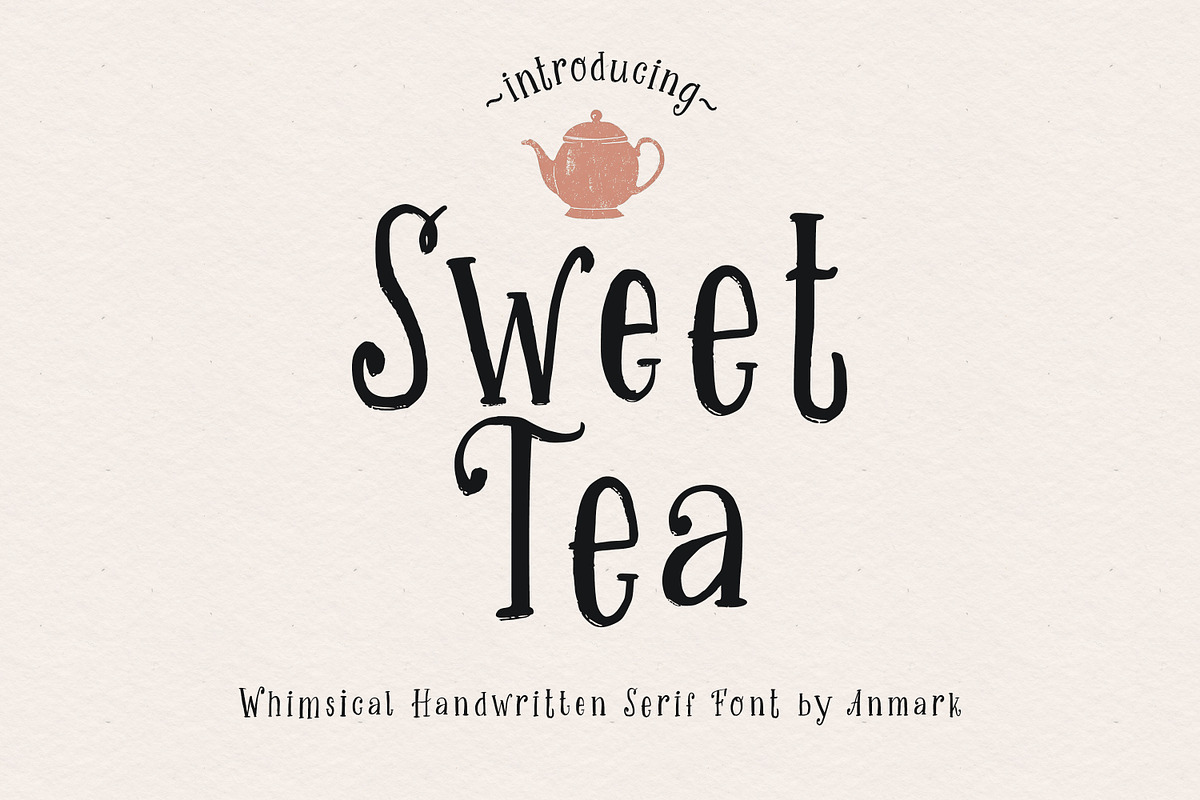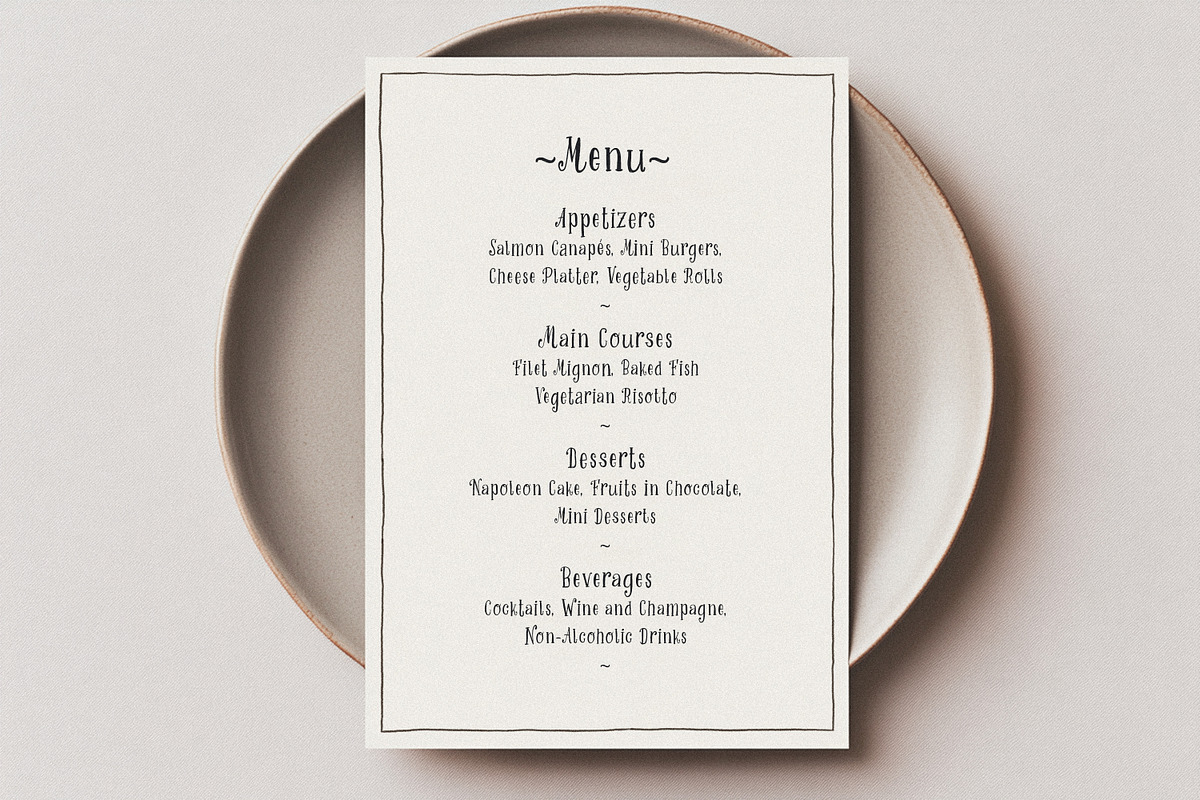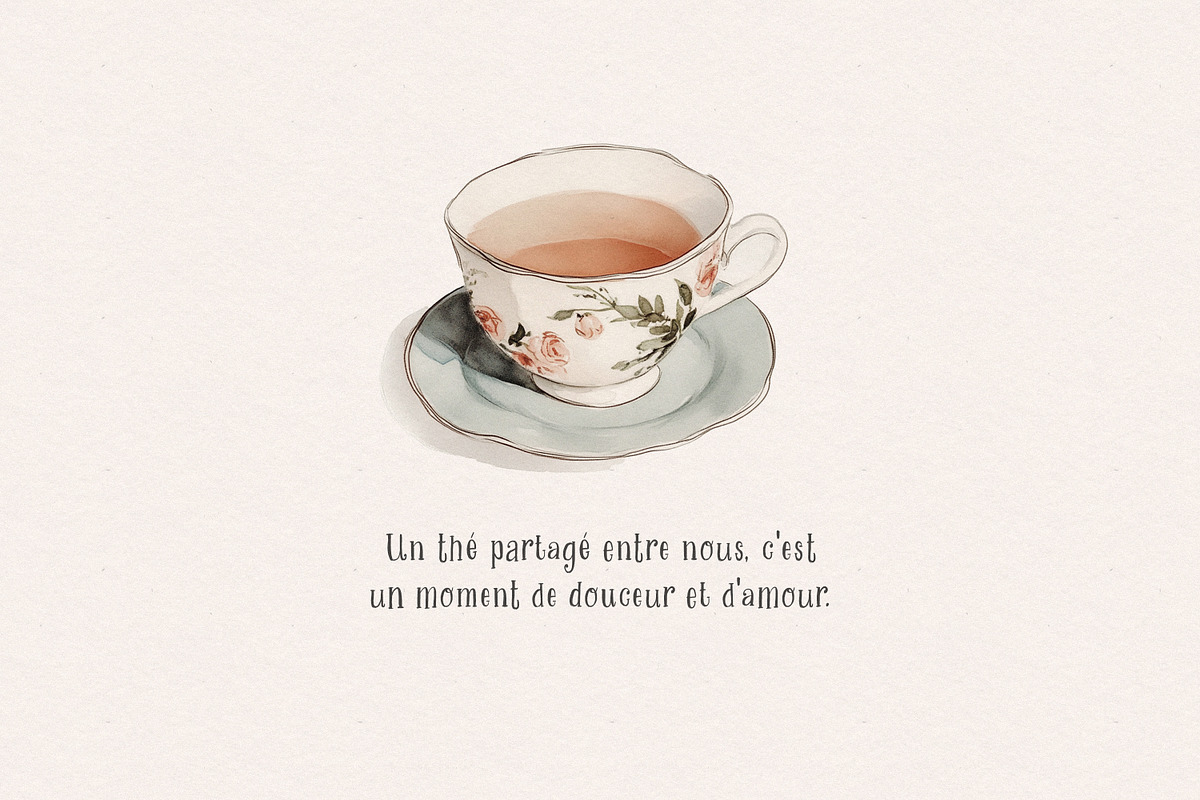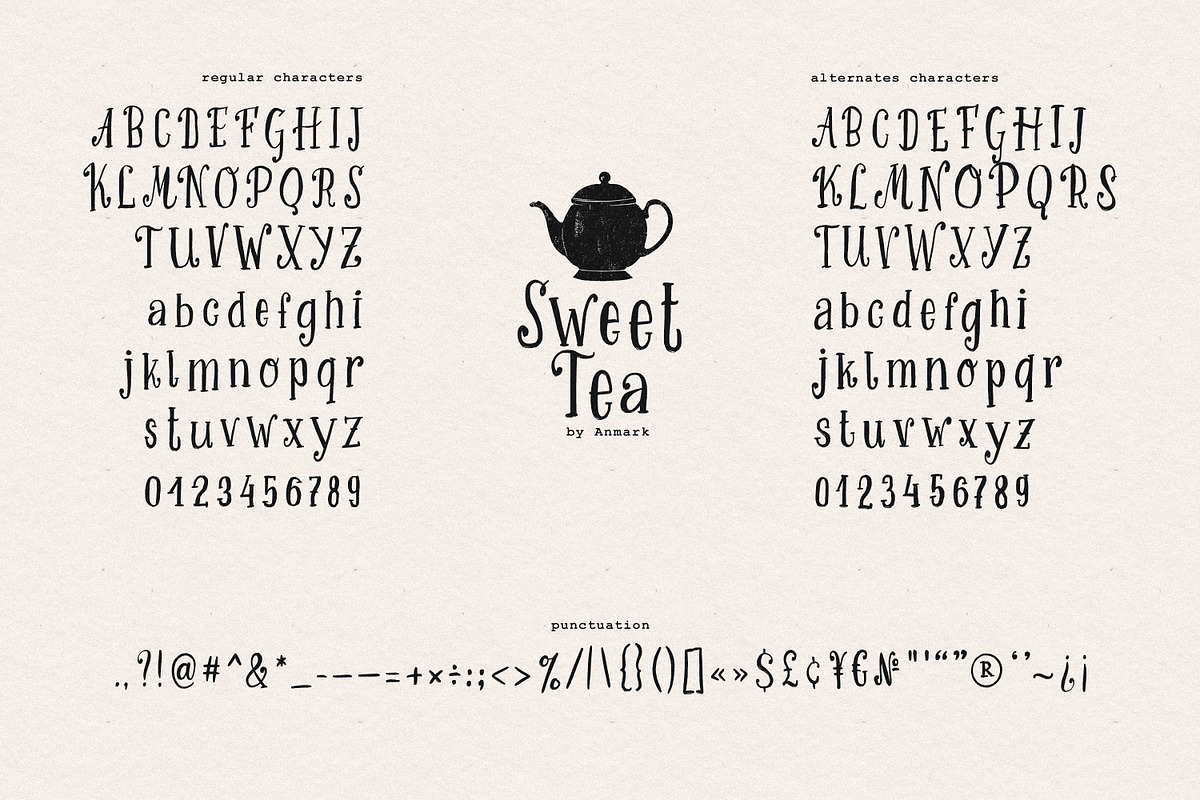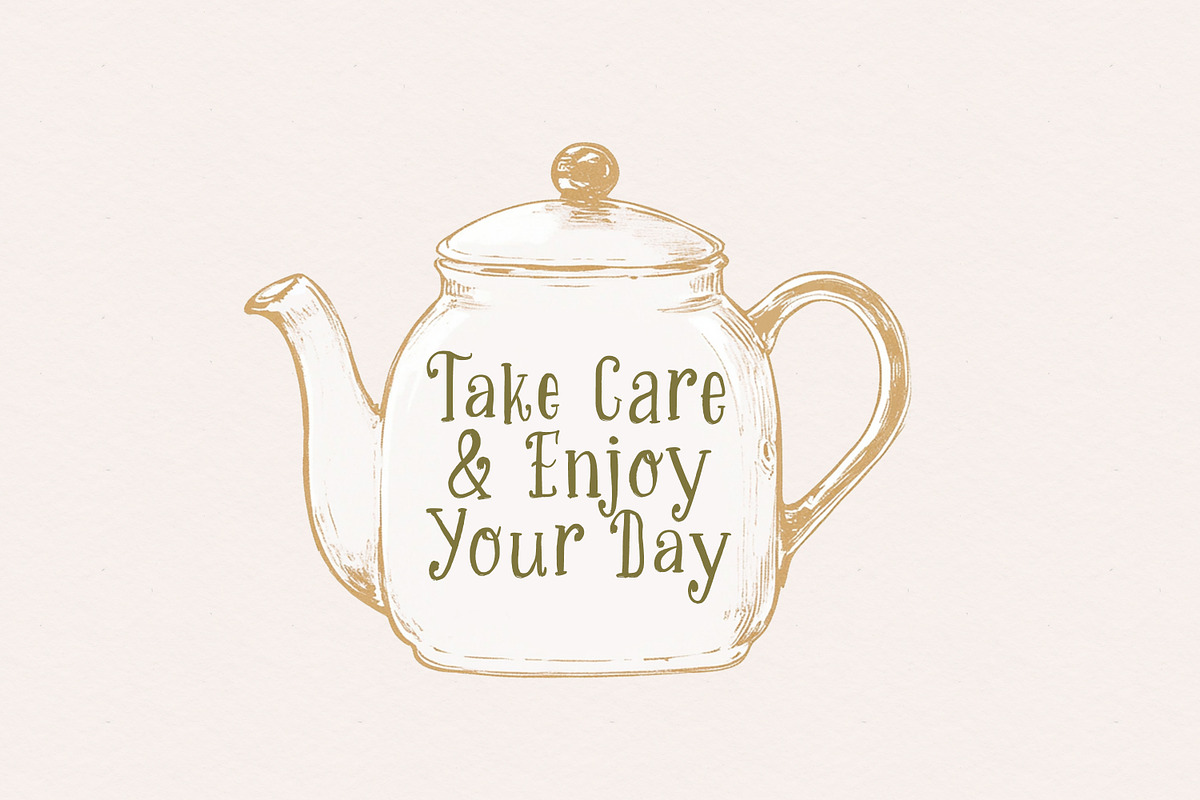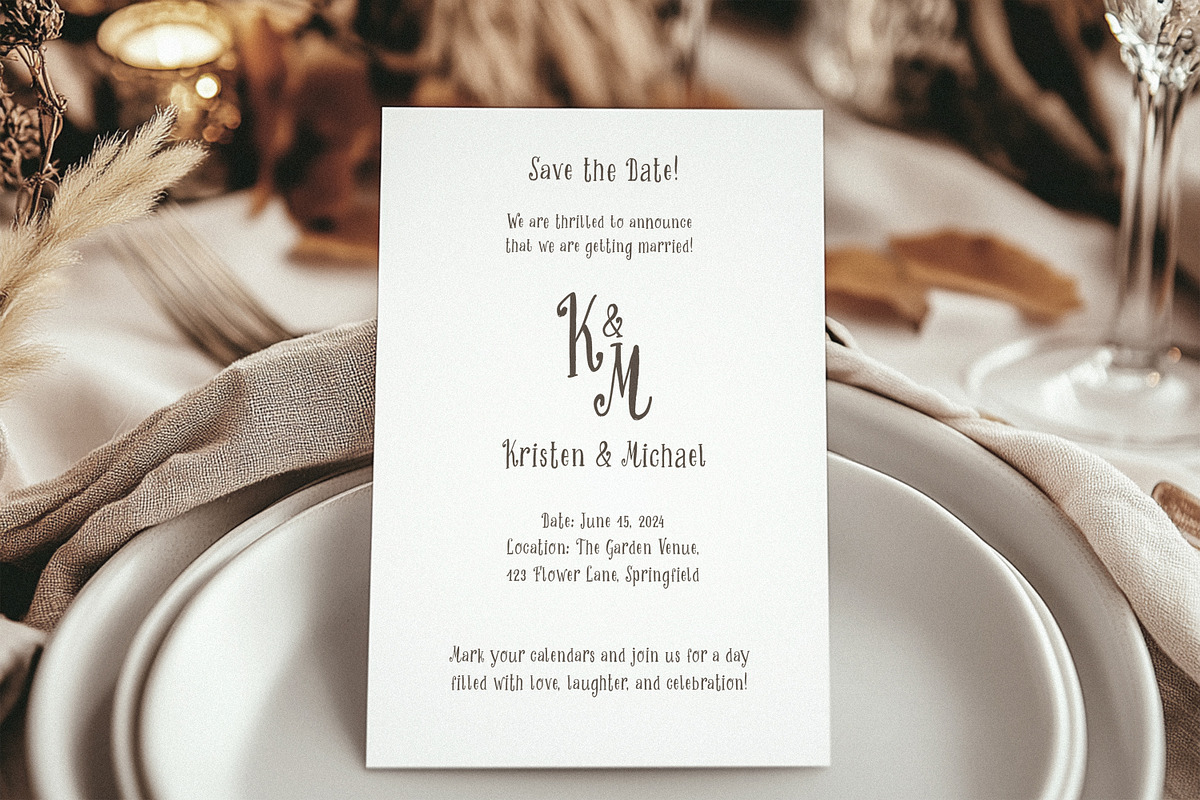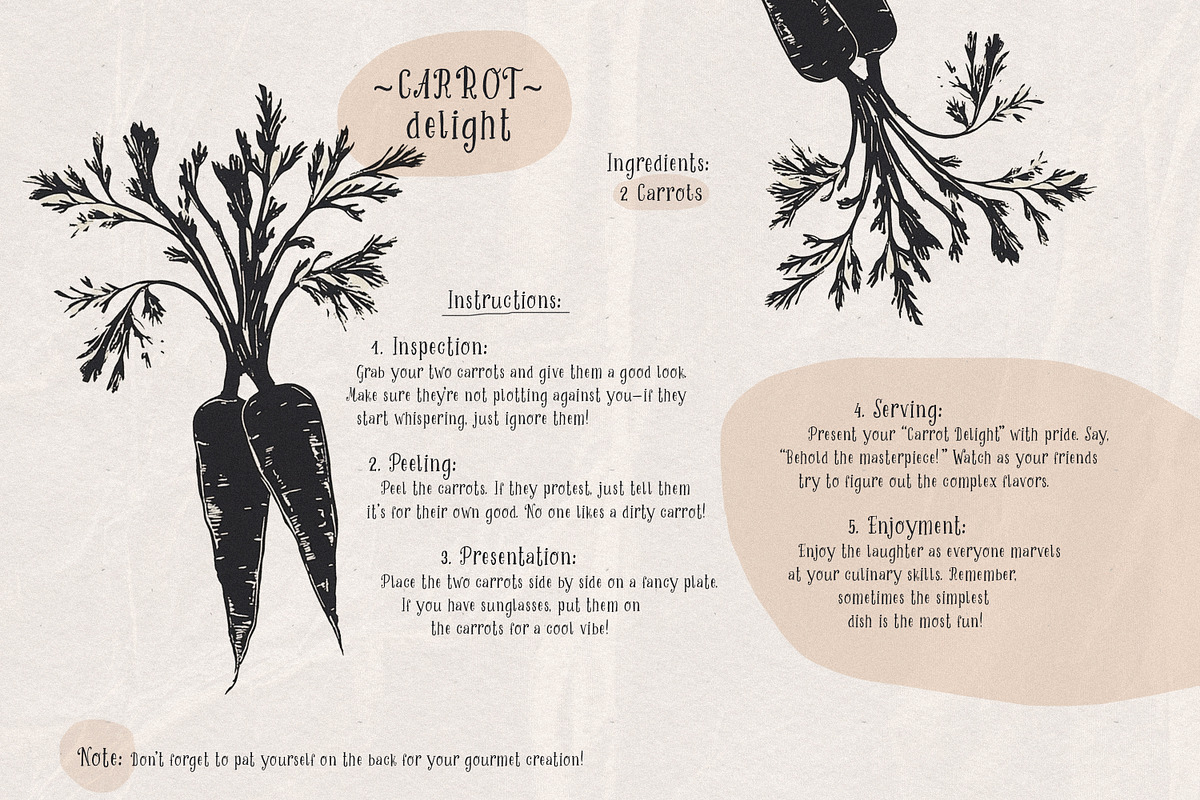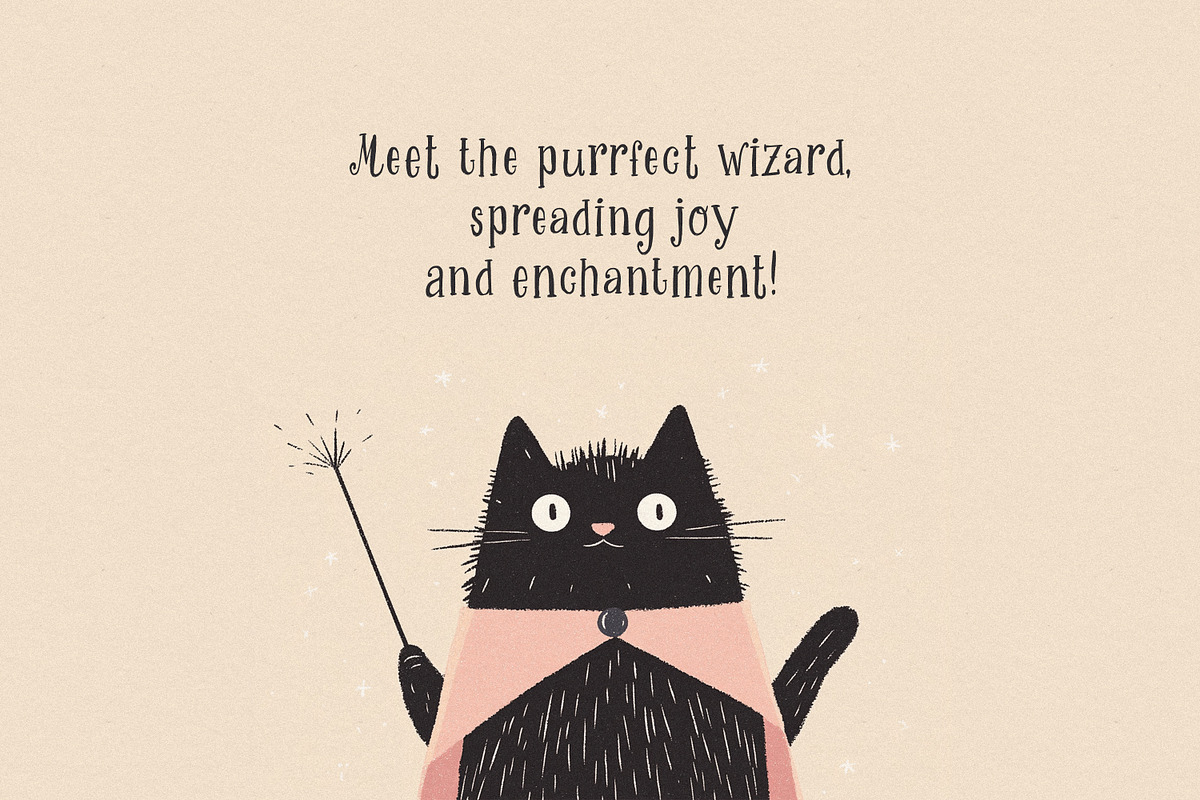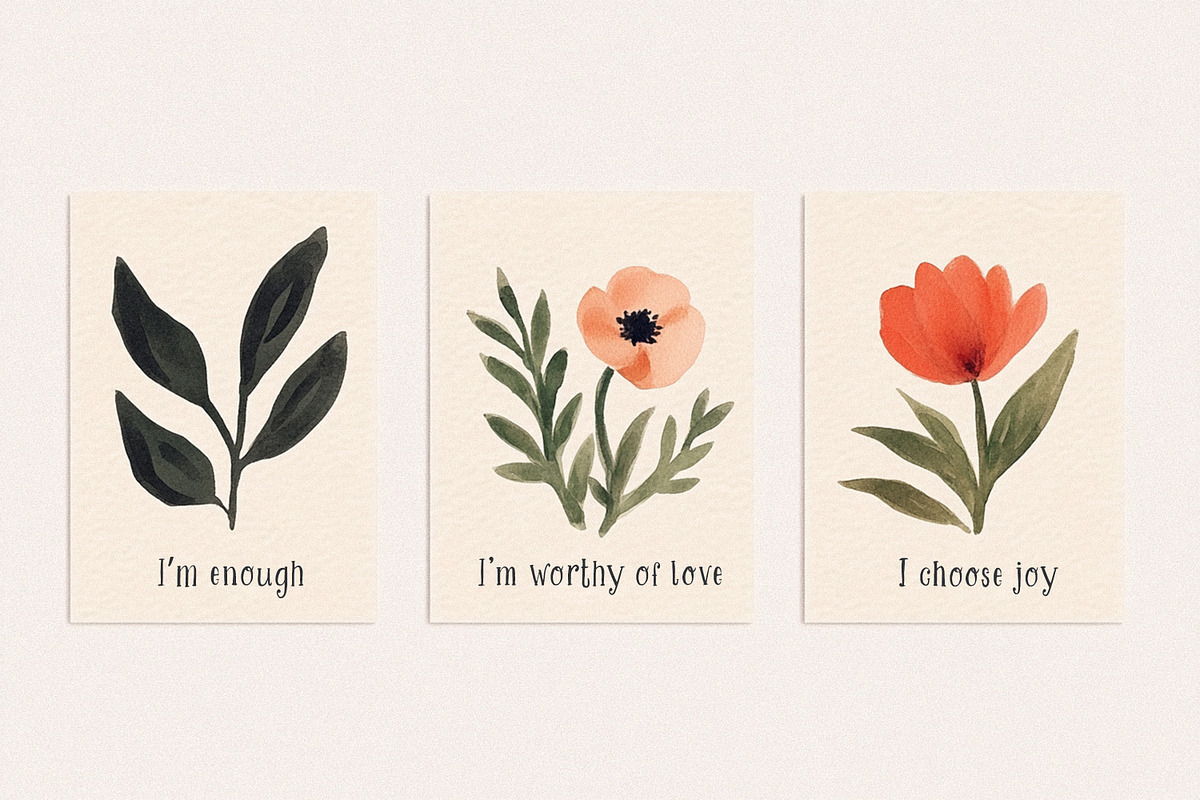
Sweet Tea: Handwritten Serif Font
Sweet Tea is a whimsical handwritten serif font with a charming vintage feel, perfect for adding a fairy tale touch to your creative projects. Inspired by storybook typography and old-world elegance, this fantasy font blends playful curves with delicate serifs, making it ideal for book covers, wedding invitations, logos, product packaging, menus, posters, and editorial designs. Whether you're designing for a cozy café, a handmade shop, or a magical fairy tale story, Sweet Tea will bring warmth and nostalgia to your work.
This font includes both uppercase and lowercase letters, as well as numbers and punctuation, all carefully crafted to maintain a whimsical hand-drawn look. It also features alternates for uppercase, lowercase, and numbers, allowing for even more customization and creativity. With its unique charm and vintage-inspired elegance, Sweet Tea is the perfect choice for storytellers, dreamers, and designers looking for a touch of magic in their typography.